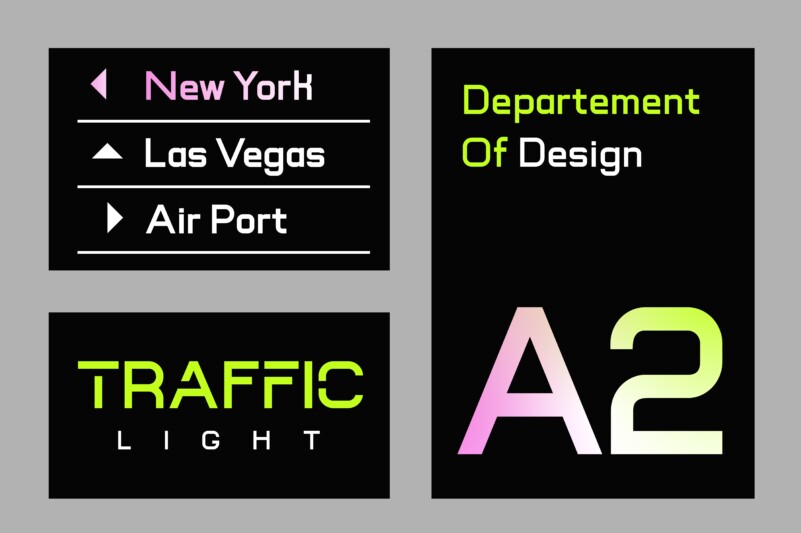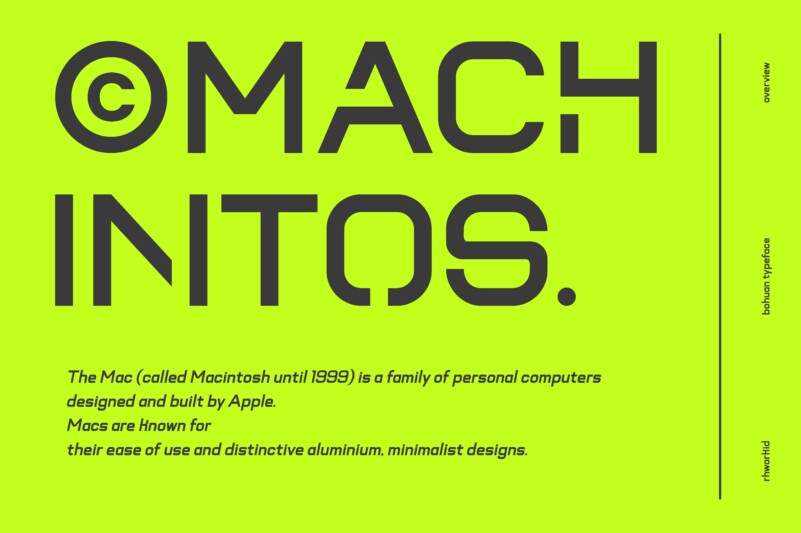
Bohuan Font
Bohuan Font is a variable modern sans serif display typeface created by Rhwork id. Its inspired by a mecha cyberpunk sub genre. The modern and unique characteristics makes it suitable for attention grabbing design projects such as a engineering, technology, cyber media, army stuff, headlines, posters, social media displays and editorials.